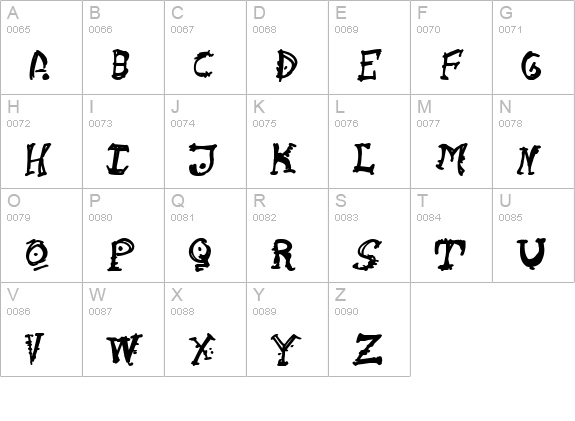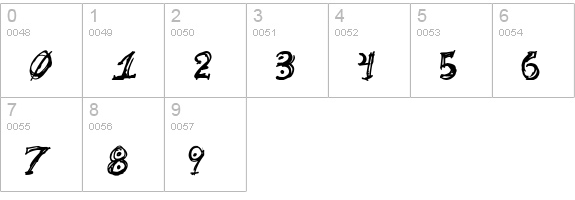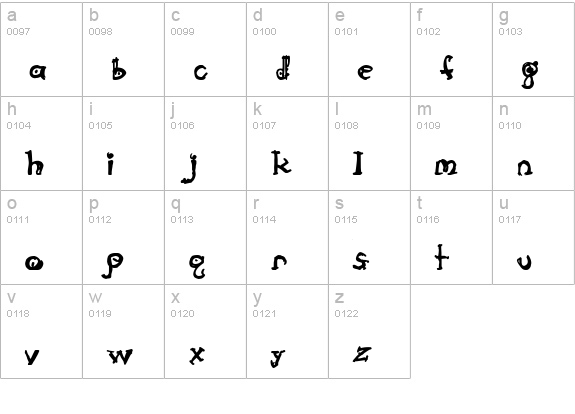
Cathzulu Font Details
Cathzulu font is a beautifully crafted typeface that exudes elegance and sophistication. With its intricate details and stylish curves, this font is perfect for adding a touch of class to any design project. The versatility of Cathzulu font makes it suitable for a wide range of applications, from logos to headlines to invitations. What sets Cathzulu font apart is not only its stunning aesthetic appeal but also the fact that it is completely free to download. That's right, you can enhance your designs with this exquisite font without spending a penny. Simply head over to FontsMarket.com to get your hands on this gem and start incorporating it into your creative work today. Unlock the potential of your designs with the timeless beauty of Cathzulu font – the perfect choice for those seeking a touch of sophistication without breaking the bank.